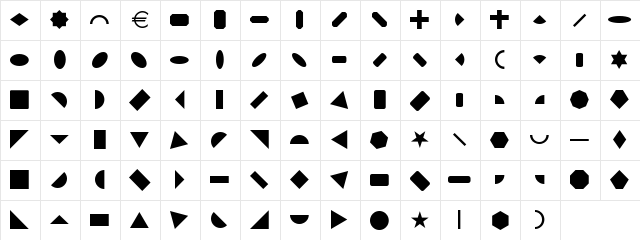
Shape Blocks Solid Regular
| Designer | C. A. Kellogg & Yuri Yarmola |
Design Context for Shape Blocks Solid Typeface
Shape Blocks Solid takes a measured approach to typography — its balanced proportions and neutral character make it a reliable workhorse for both digital and print work.